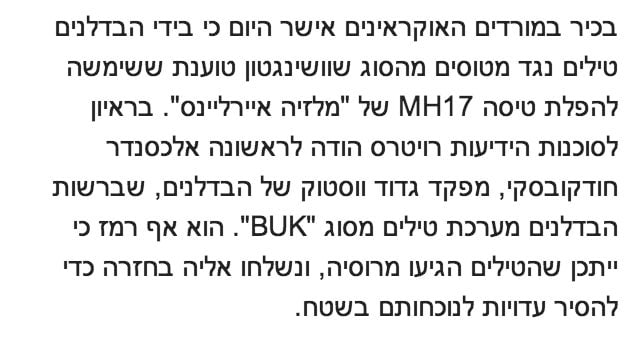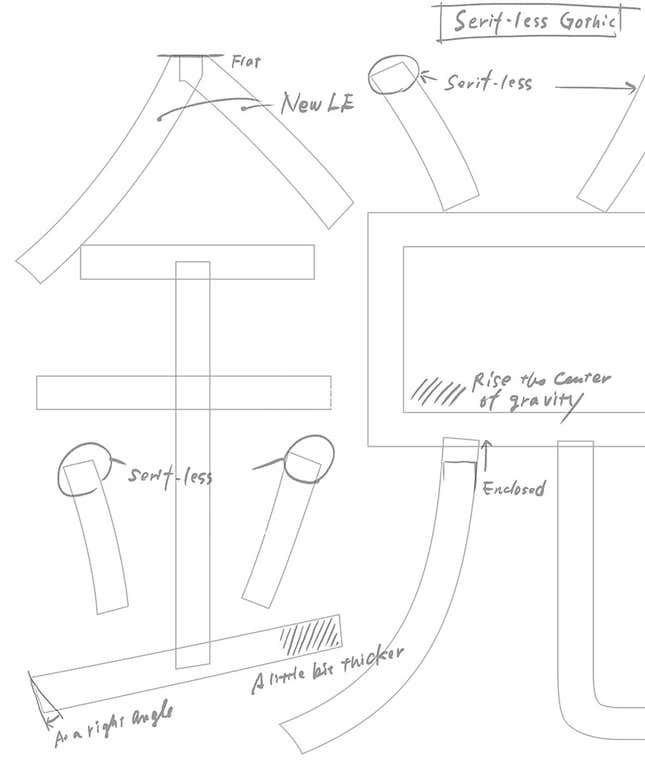
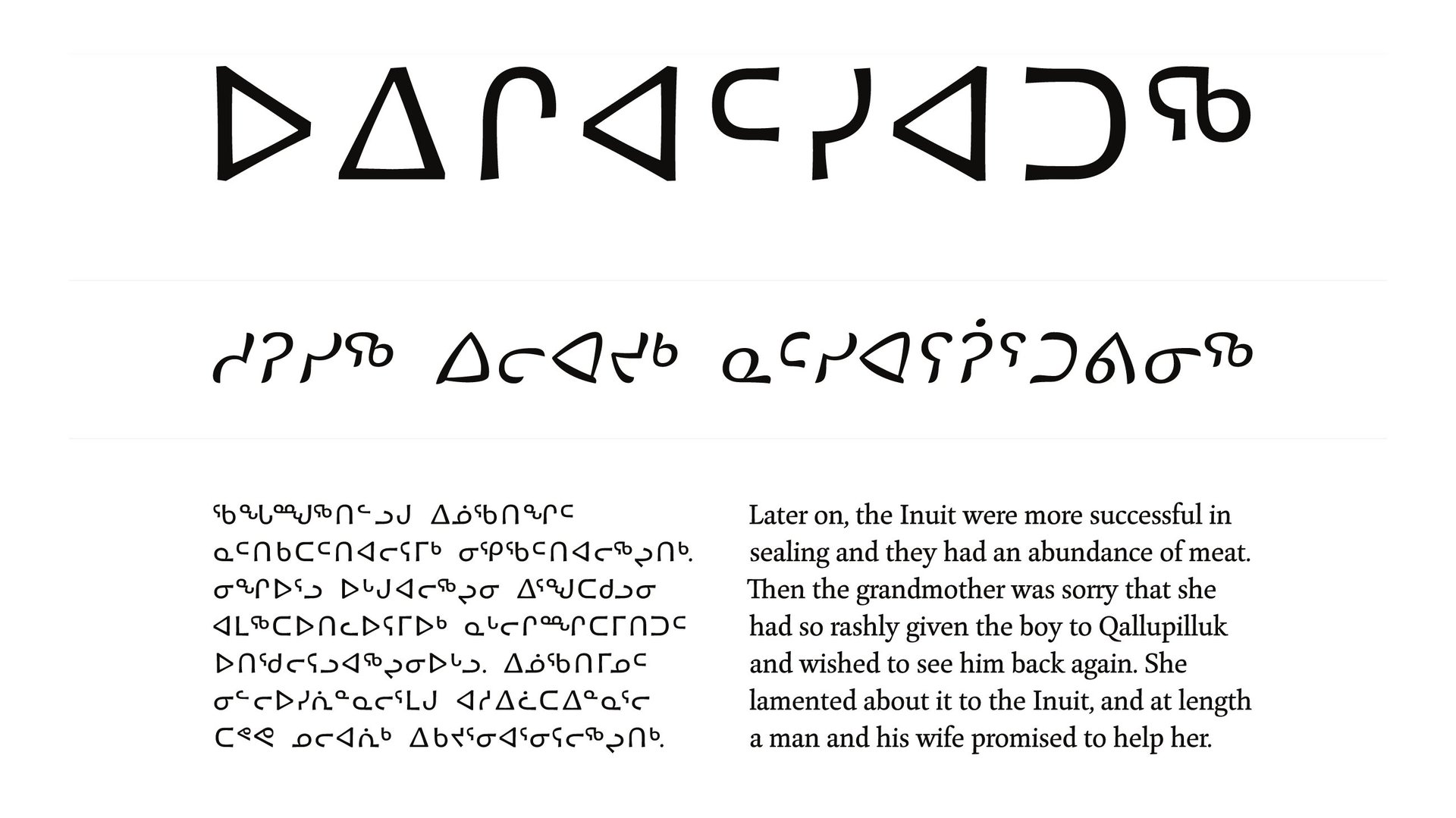
If you mostly read English or other Romance or Germanic languages, you’ve been spoiled for choice with digital fonts. The Latin alphabet has long been the subject of intense typographical exploration, with thousands of fonts available in more styles and weights than most non-designers would ever think necessary. Readers of non-Latin scripts like Chinese, Hindi, or Hebrew have never enjoyed such diversity.
Now the globalization of fonts is erasing this disparity. Type design and delivery might seem esoteric, but the flattening world of type actually speaks volumes about the economic and technological changes that are creating a truly global internet.
Some kind of digital typeface has been available for the most widely used scripts for a long time. Microsoft $MSFT Windows 2000, for instance, had pretty impressive support for its time, including Thai, Georgian, and Vietnamese. But until very recently, all the fonts—digital representations of typefaces—displayed on a computer or smartphone had to be installed on those devices’ operating systems. This Wikipedia page, for example, lists all of the fonts that come bundled with Windows. This is extremely limiting: A designer or developer cannot use anything other than those (usually fairly boring) fonts.
Now that limitation is being overcome, thanks to web fonts. These are essentially the typographic equivalent of music streaming services. Spotify $SPOT removes the need for a hard drive full of mp3s by transferring audio directly over the internet. Web fonts do the same for a hard drive full of fonts. Quartz, for example, uses PT Serif for its body text. You probably don’t have PT Serif installed on your computer or phone, but you can see it anyway. That’s because your web browser downloads the font automatically.
“[Web fonts] are a breath of fresh air,” says Gerry Leonidas, a professor at Reading University in the UK who specializes in Greek typeface design. They allow designers to add new fonts to their pages at any time, and even to make frequent and subtle changes to existing fonts, adds Leonidas. And they are being used on a tremendous scale. Google $GOOGL, the largest provider of free web fonts, has delivered over 2 trillion downloads.
This will no doubt improve the online reading experience in English, Spanish, or German. But it is almost revolutionary for non-Latin scripts, because system fonts for them are often either non-existent or badly designed. ”Web fonts are way more important for non-Latin scripts than they are for Latin,” says David Březina, the chief type officer at Rosetta Type, a firm that designs custom fonts to cover multiple scripts.
Rosetta has elegant web font offerings in such previously sidelined scripts as Armenian and Inuktitut, a language spoken and read by Canadian Inuits. A student of Leonidas’ developed the first font for the Native American language Lushootseed; converting this into a web font would be trivial.
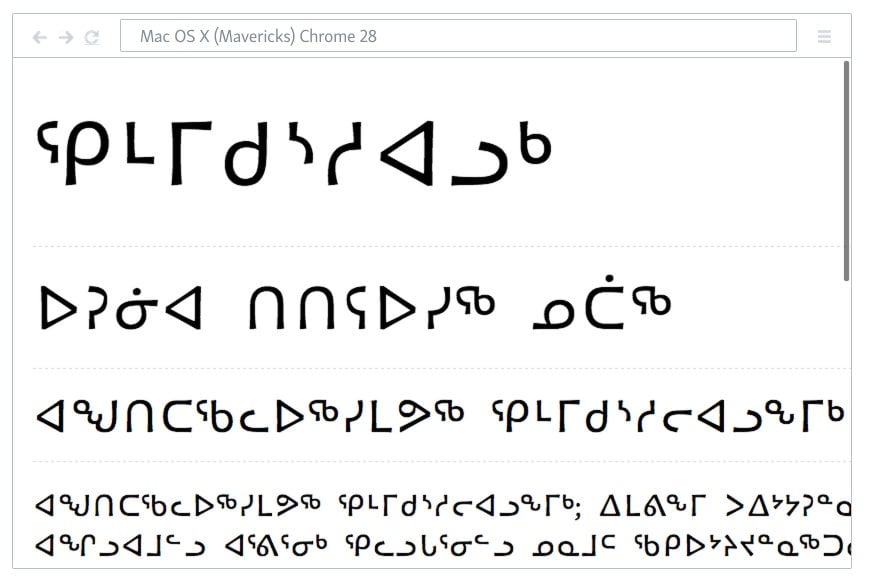
Web design has been improving steadily in Western countries, thanks to faster connections, better browsers, and more robust web development tools. Newer sites like Medium and Pinterest $PINS look shockingly better than their predecessors (compare them to Amazon $AMZN, for example).
The state of web design in developing countries, on the other hand, has been mostly abysmal. Chinese websites are mostly walls of tiny, barely legible text. The site of Al-Ahram, Egypt’s largest daily newspaper, looks like it was designed in 1996. The same goes for the online home of the Indian state of Gujarat. But as the number of internet users in these countries grows alongside their economic prospects, they are demanding something better.
“Font design has not been highly regarded in China,” says Curt Huang, president of Chinese font agency Changzhou Sinotype, a frequent collaborator with Adobe $ADBE. But, he says, “Chinese companies are increasingly concerned about fonts and design in general.” And it’s not just companies trying to improve their brand. Huang also cites growing interest in design from both individuals and even the government. Since 2005 the Central Academy of Fine Arts in Beijing has offered a PhD in typeface design, and Huang says the program is more popular than ever.
Global organizations and firms, no matter where they’re based, ignore this demand for quality at their own peril. Leonidas emphasizes the competitive advantage of having good typefaces for scripts like Devanagari, used by various Indian languages and read by between 400 million and 500 million people.
Multinational organizations are indeed responding. Voice of America adopted a Rosetta Type product for its Persian site. Google and Adobe have just released their own Pan-Asian font that covers Chinese, Japanese and Korean, which they spent two-and-a-half years developing. Adobe has rolled the font into its Source Sans family, while Google has incorporated it into its ambitious Noto project, whose aim is to construct a single, solid base font for every script on Earth.
“We’re trying to support all the languages and scripts encoded in the Unicode [character set] with as much harmony and consistency as possible, across scripts and as beautifully as possible,” said Jungshik Shin, a Google software engineer who works on Noto, in an email to Quartz. ”This is a problem that’s bigger than Google, but it’s one that we see often as we support more and more users in their native language around the world.”
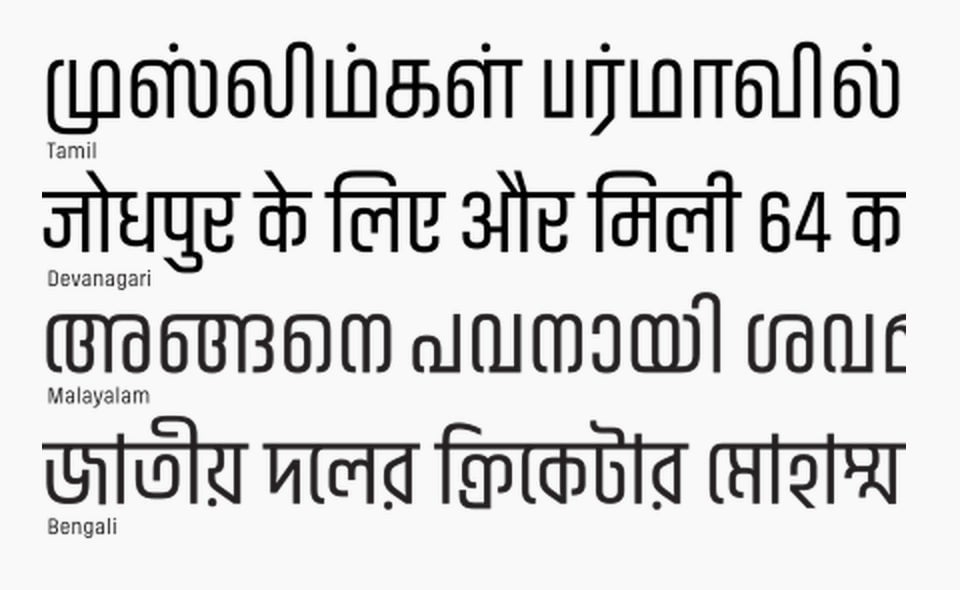
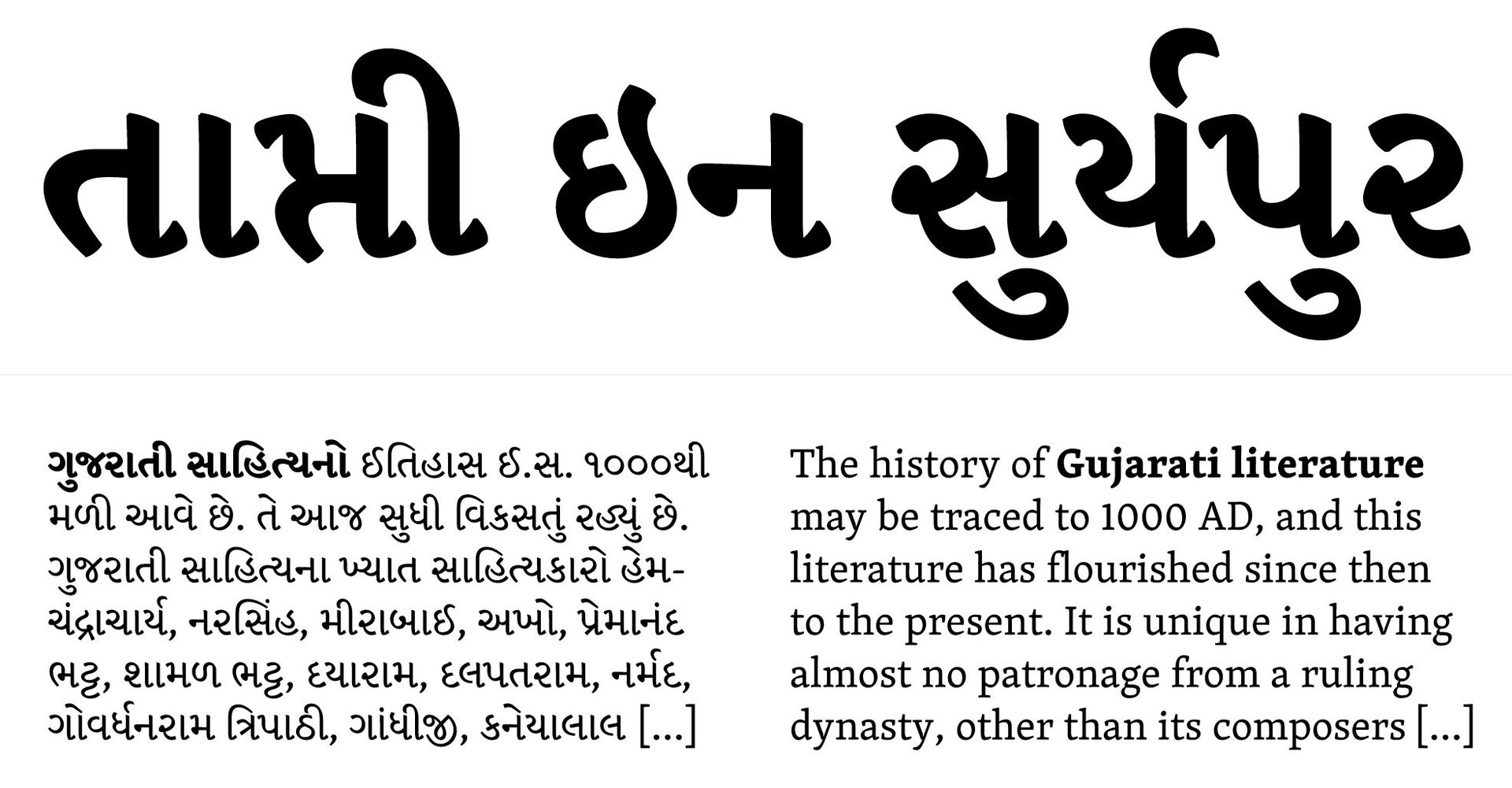
It is no longer enough for organizations like Google or VOA to speak a user’s first language, but also her second and third.
Fonts are just a good proxy for changes happening to the web. Giving people highly specialized content—whether it’s a font, software update, or search results—is now just a matter of changing a few settings. Emerging countries are hungry for a better web experience. Companies that deliver one will be rewarded.
But the globalization of fonts does tell us one thing: that a multilingual web is already 司空見慣.